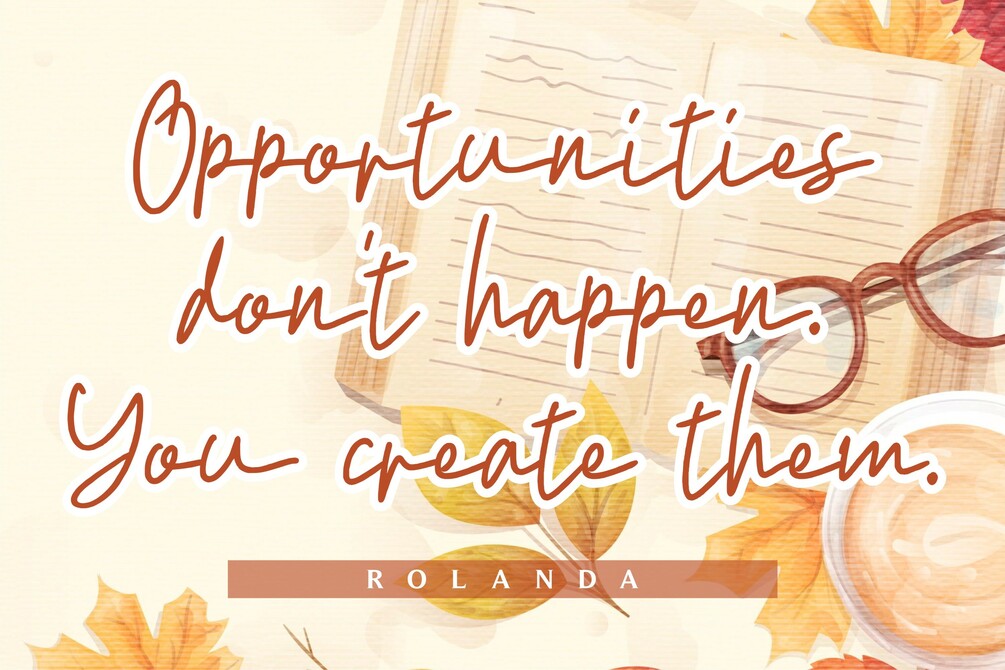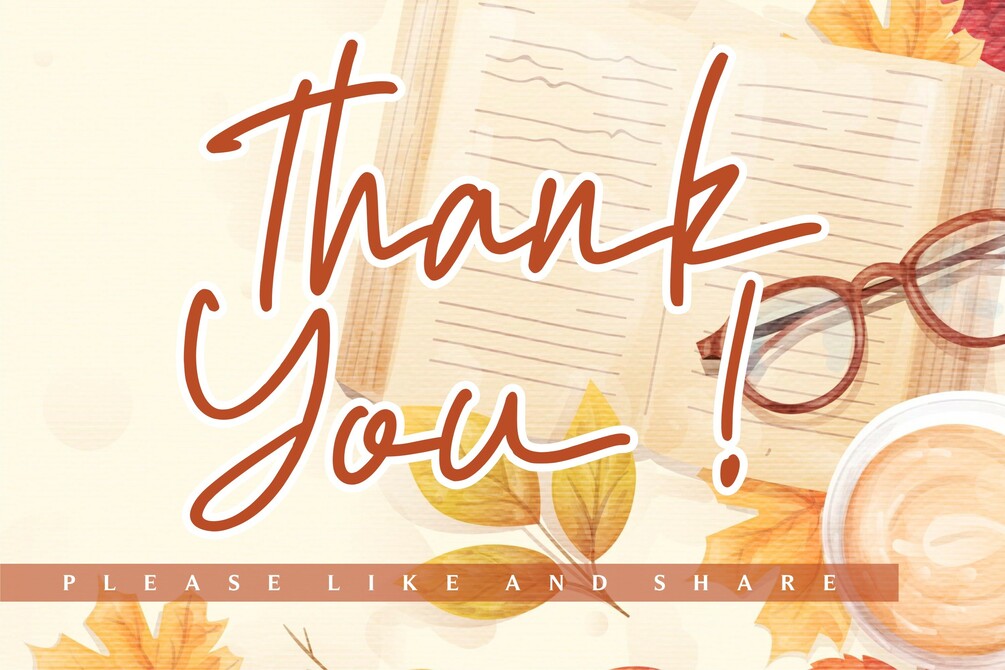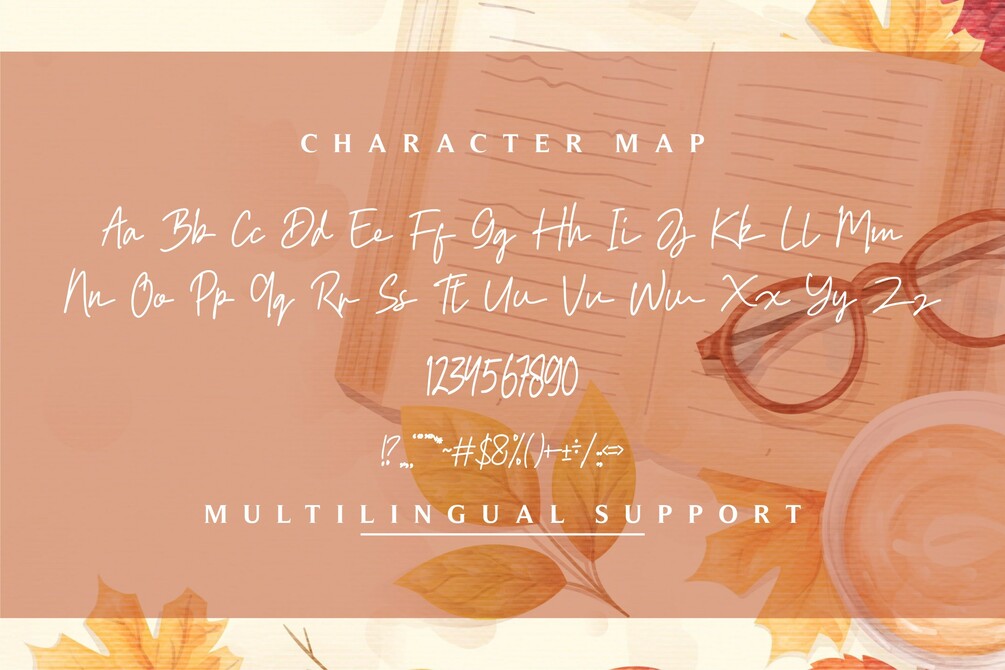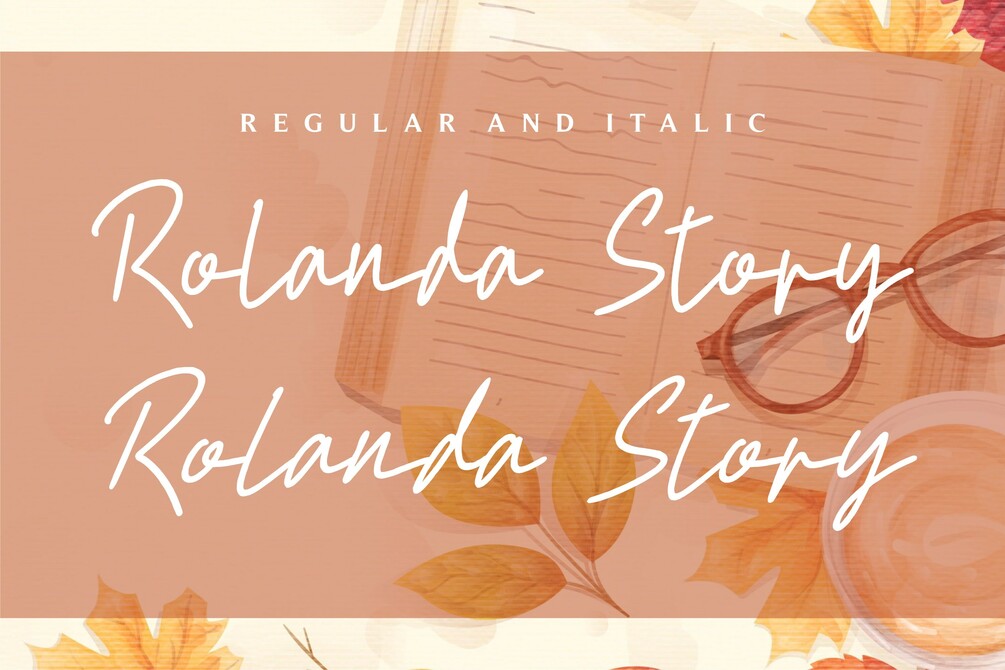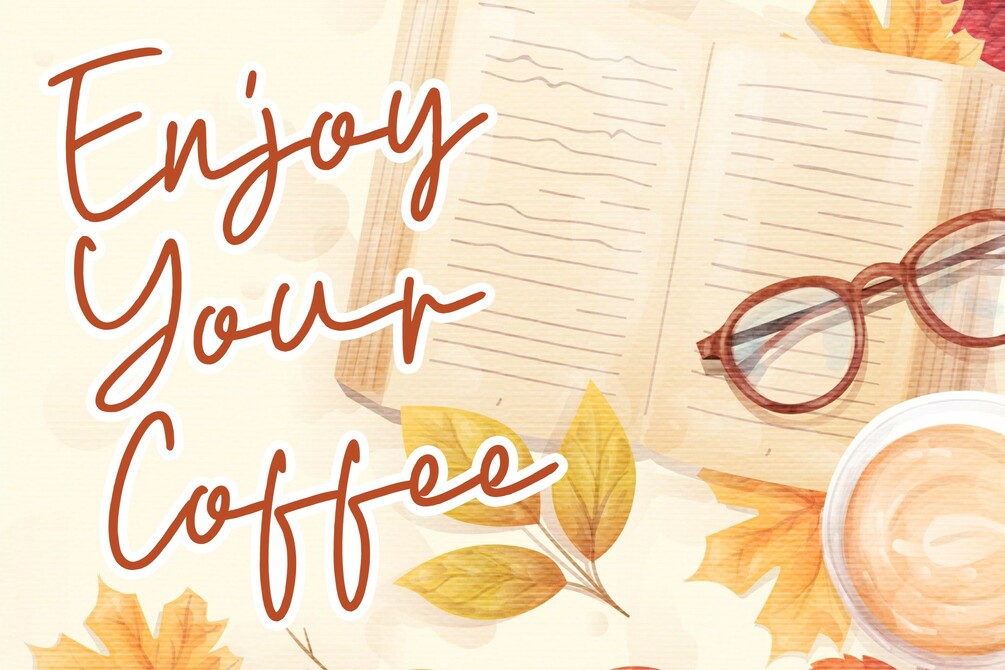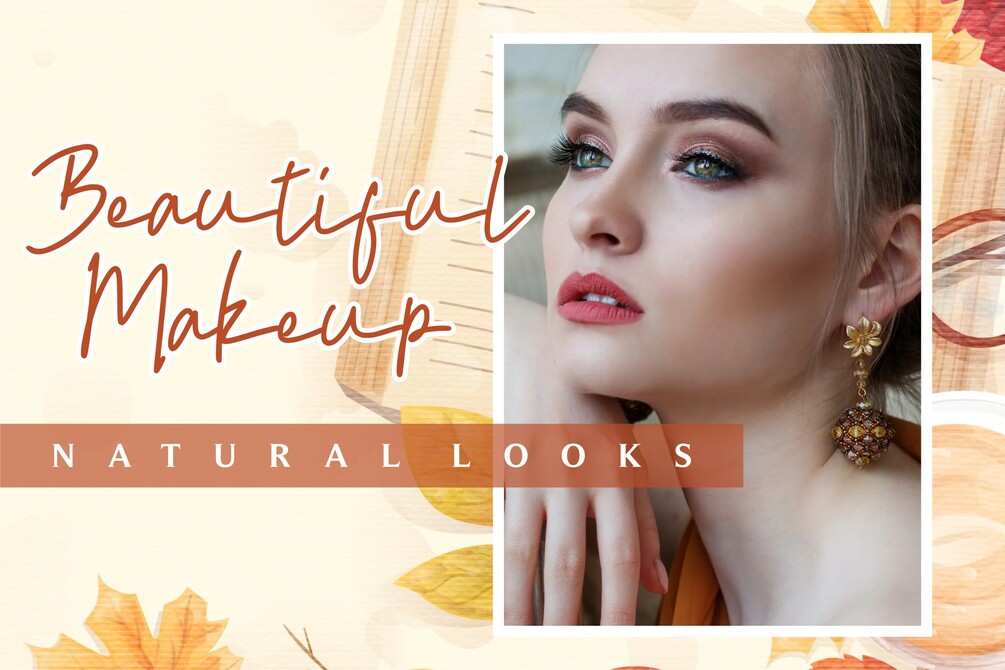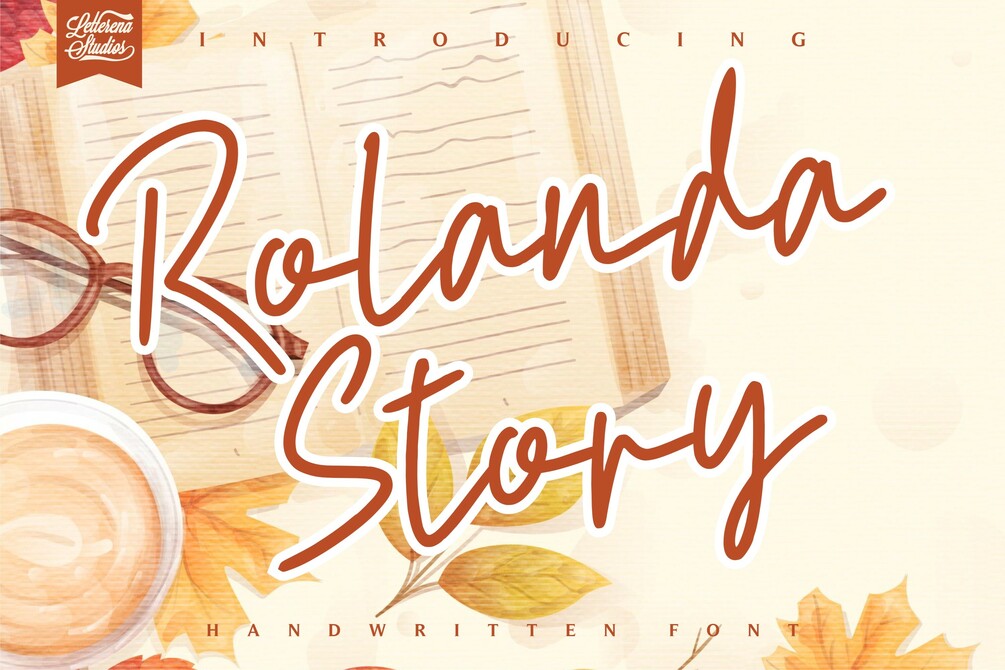
Rolanda Story - Handwritten Font
Rolanda Story - Handwritten Font, from Letterena, is a romantic calligraphy font, suitable for any projects such as: logos, branding projects, homeware designs, product packaging, mugs, quotes, posters, shopping bags, t-shirts, book covers, name card, invitation cards, greeting cards, label, photography, watermark, special events, and all your other lovely projects that need a beautiful calligraphy taste.